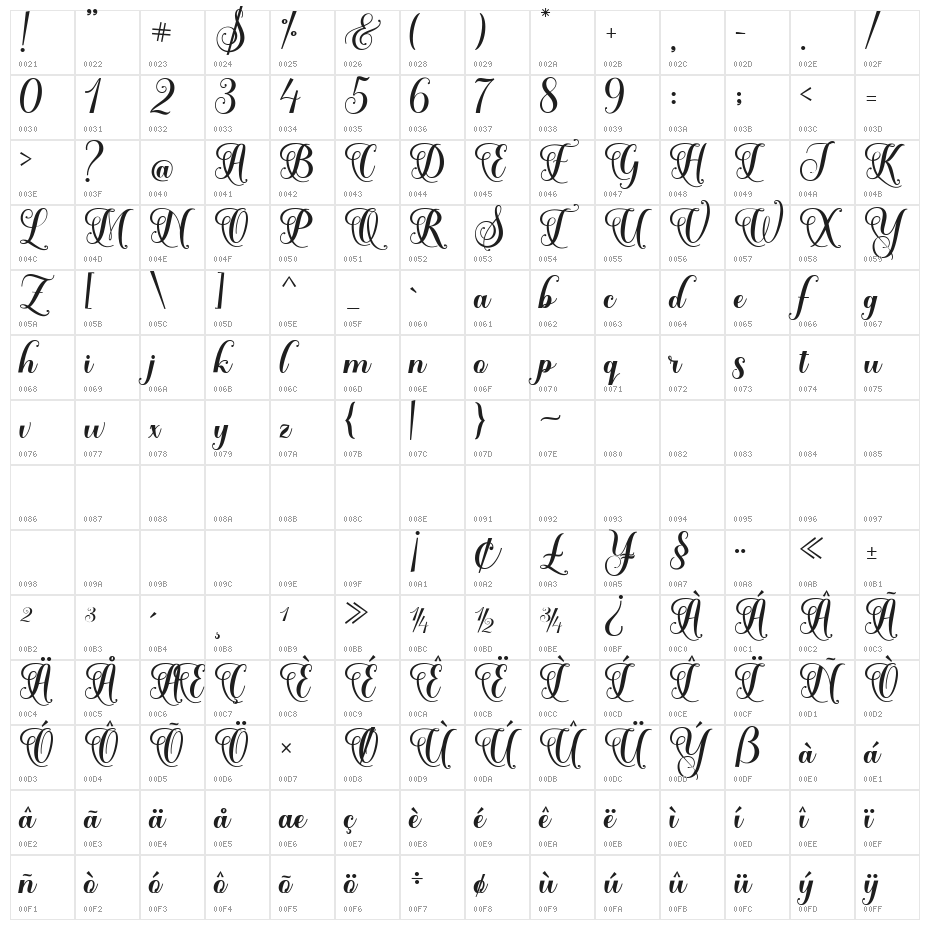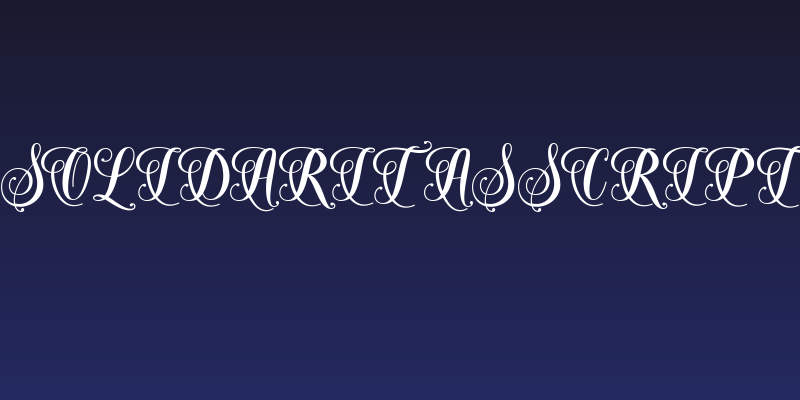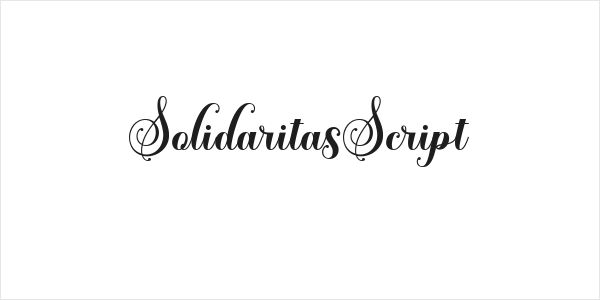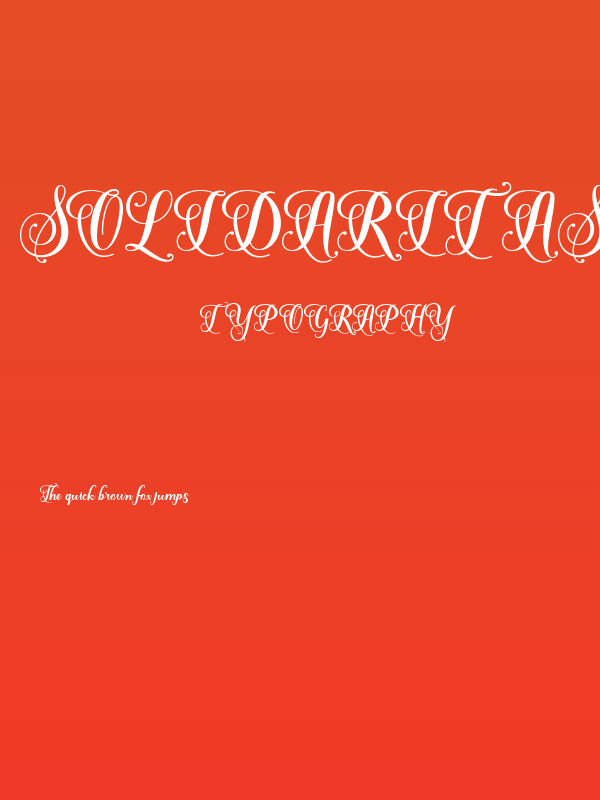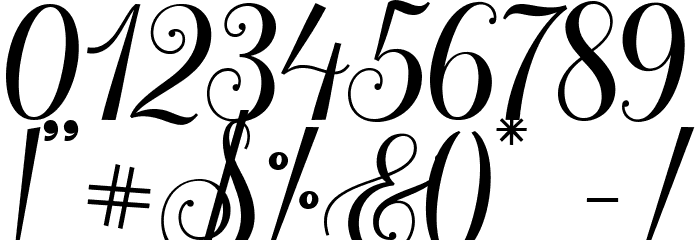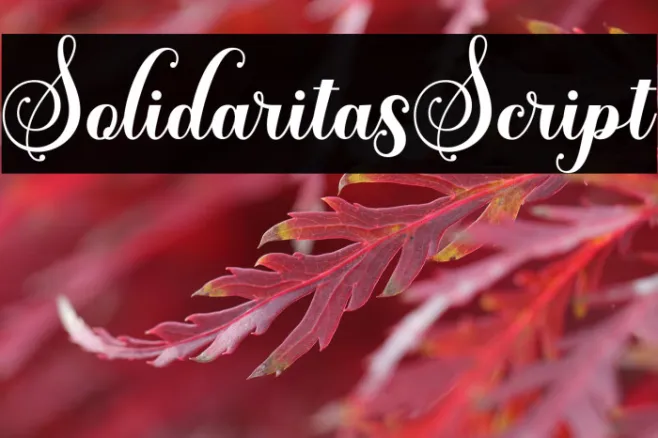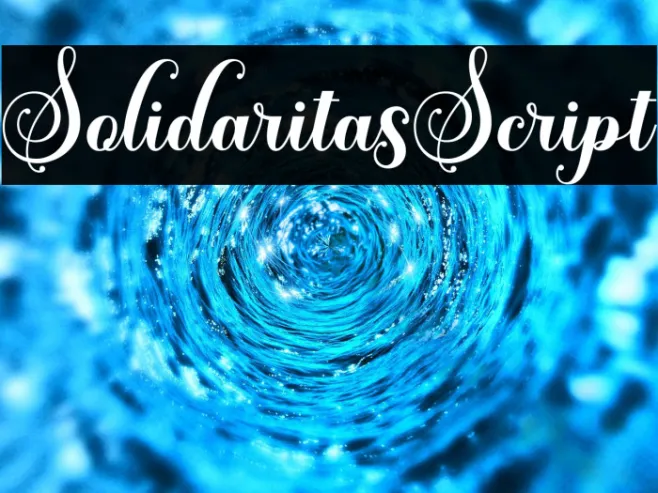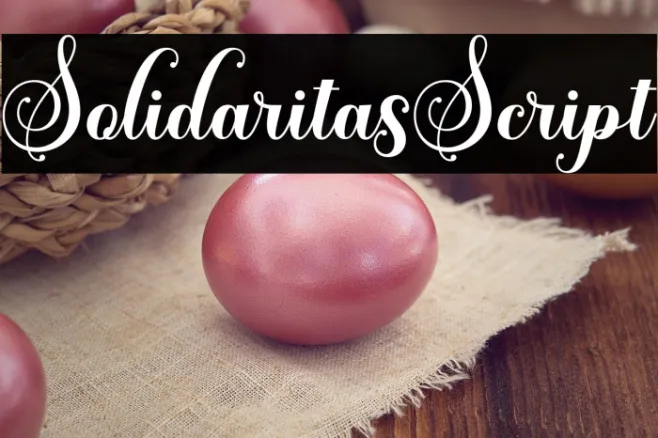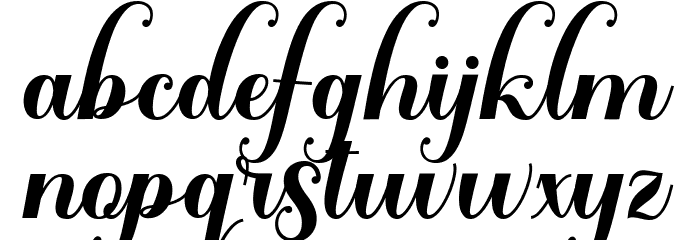
SolidaritasScript Font
SolidaritasScript Description
This elegant script font features flowing, interconnected letters with ornate swirls and flourishes. The uppercase letters are particularly decorative, with intricate loops and curves that give a sense of sophistication and grace. The lowercase letters maintain a smooth, cursive style, complementing the uppercase with their fluidity. Numbers and special characters are designed with similar embellishments, ensuring a cohesive look throughout. This font is ideal for projects that require a touch of elegance and refinement, such as wedding invitations, formal event programs, or luxury branding.
| Use Case | Headlines, Invitations, Branding |
| Proposed Projects | Wedding invitations, formal event programs, luxury branding, elegant signage. |